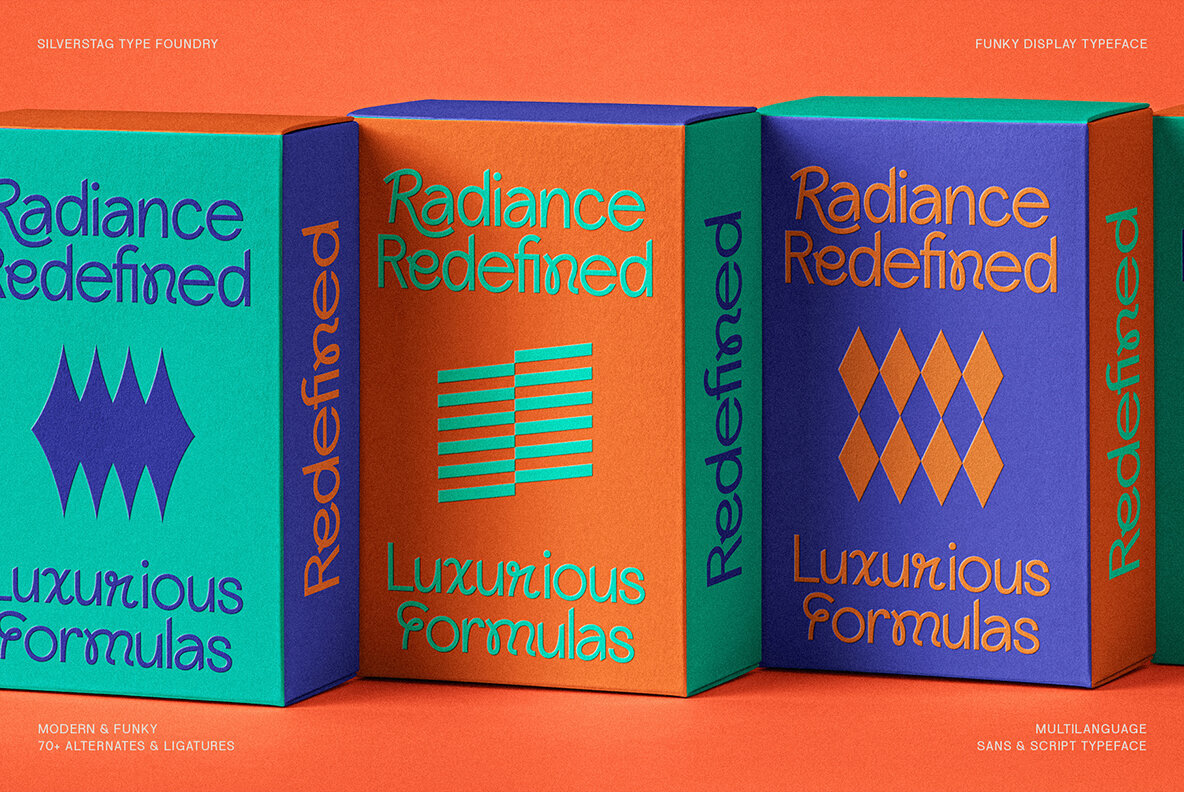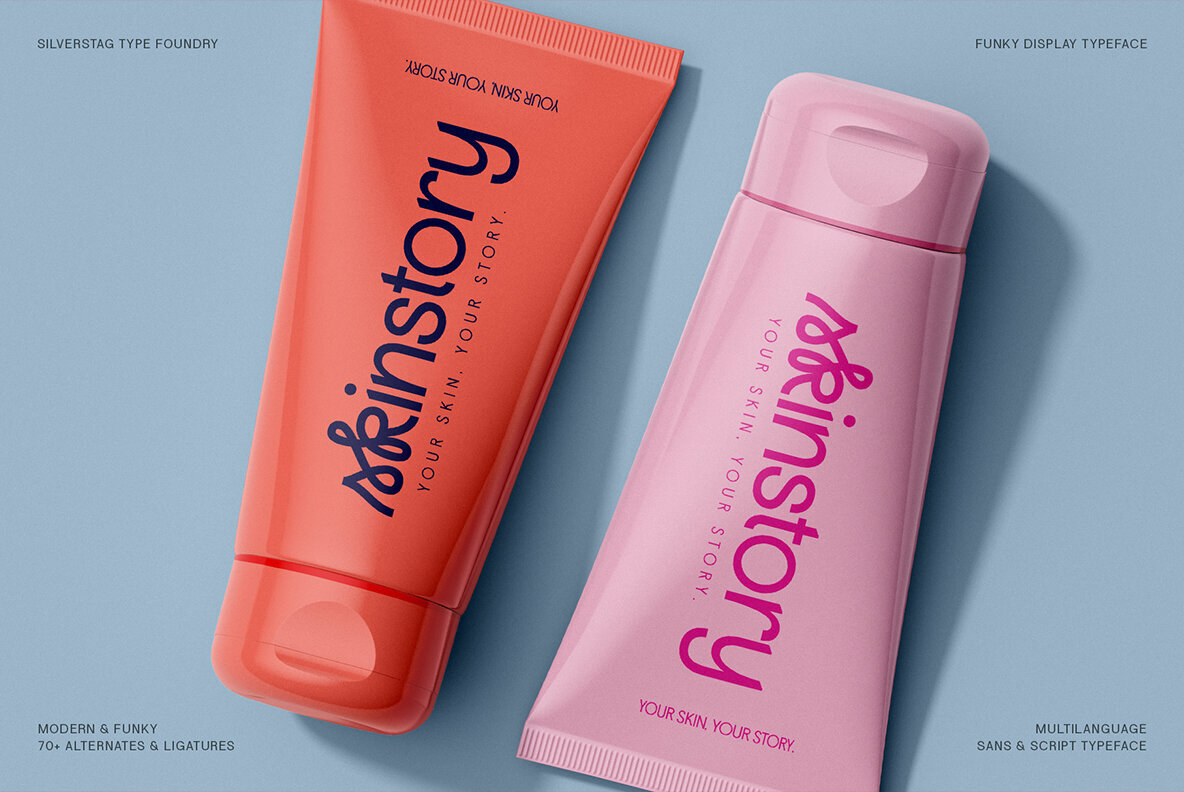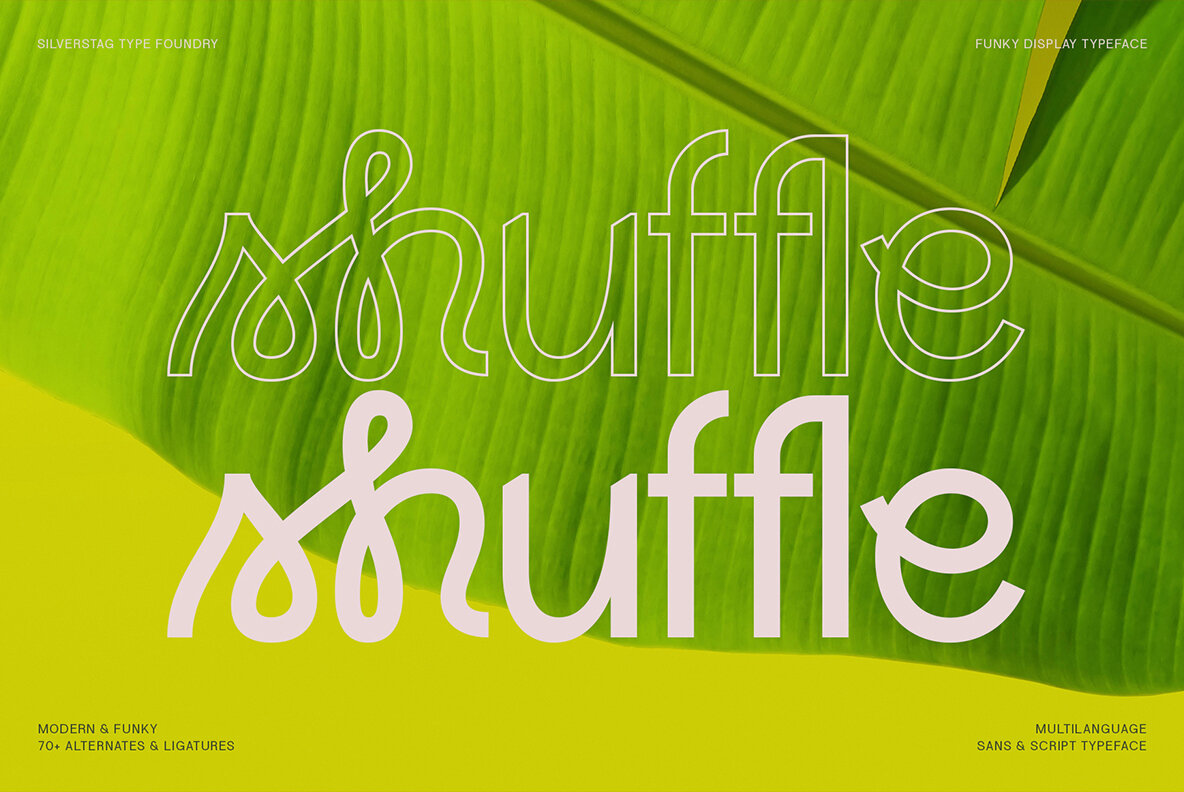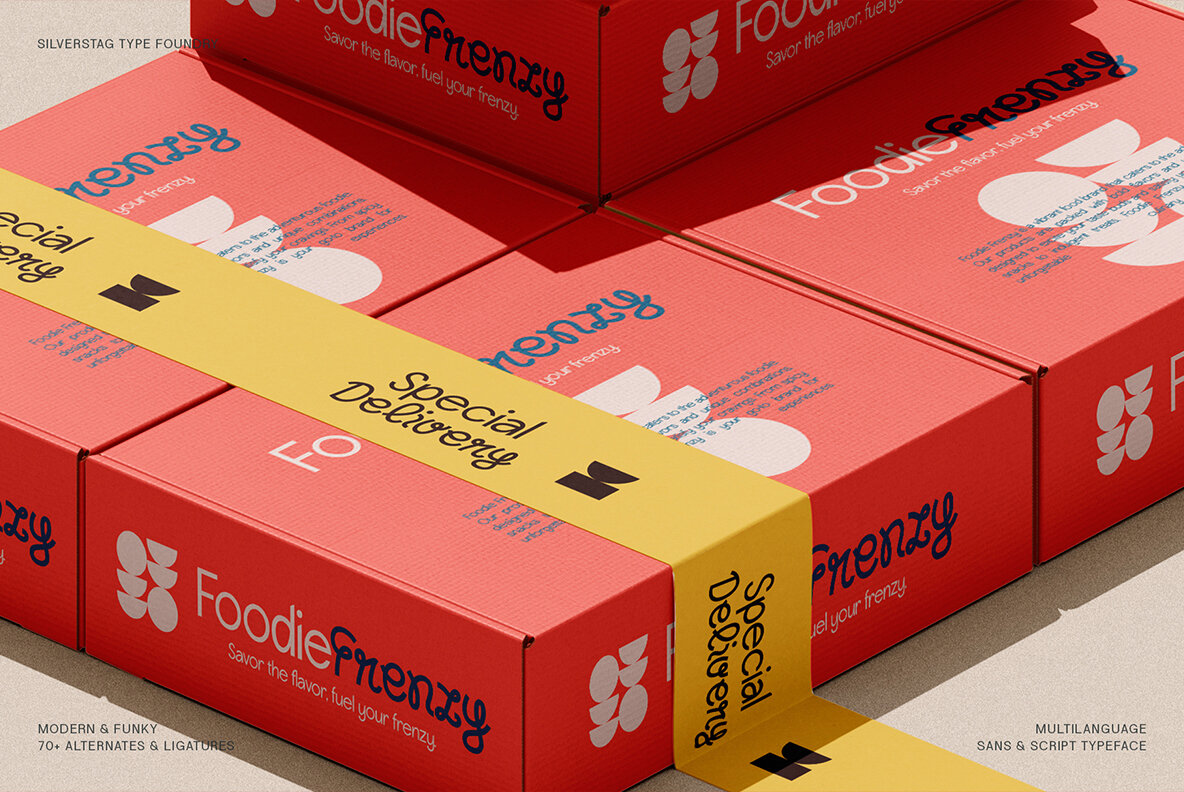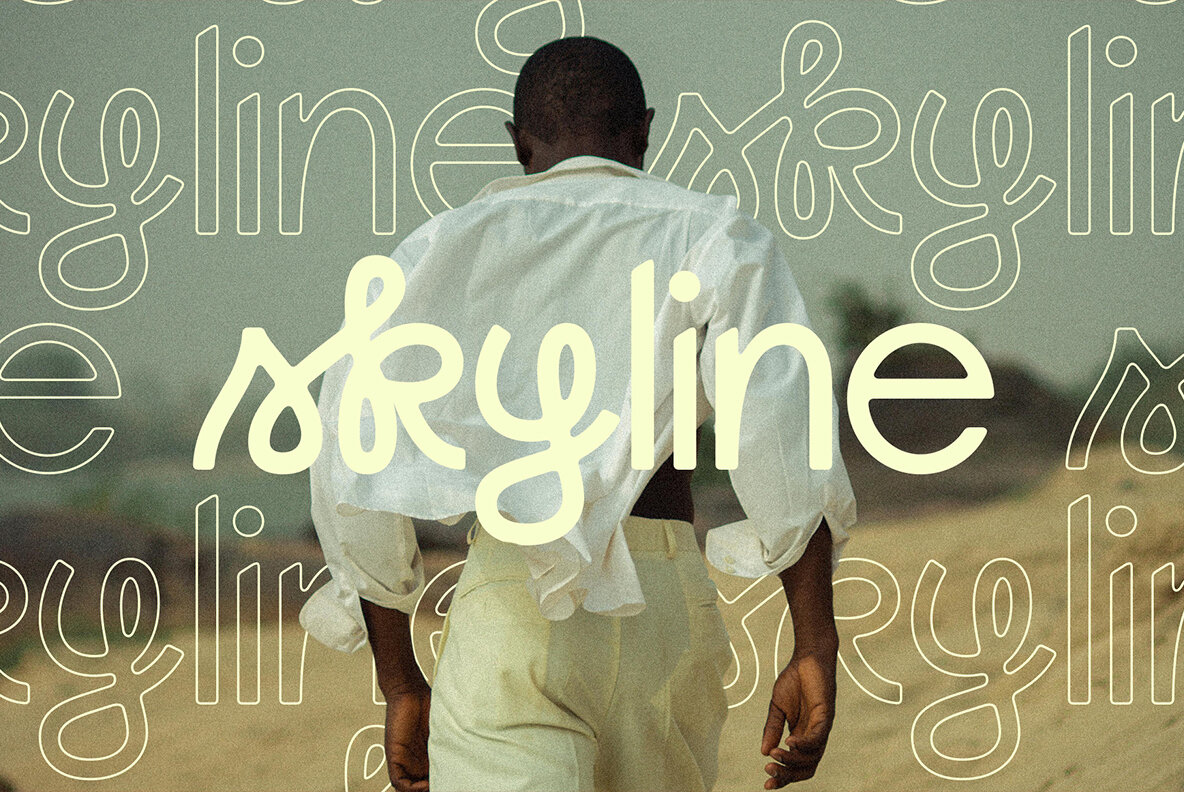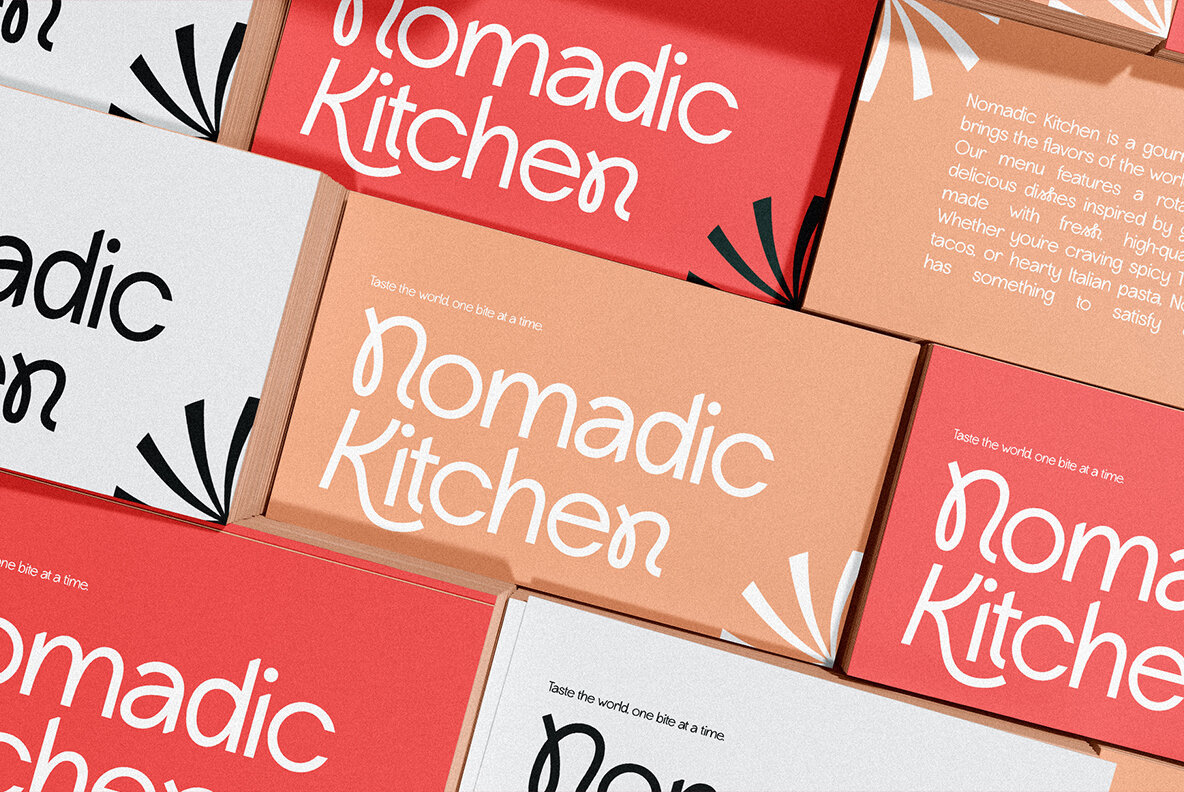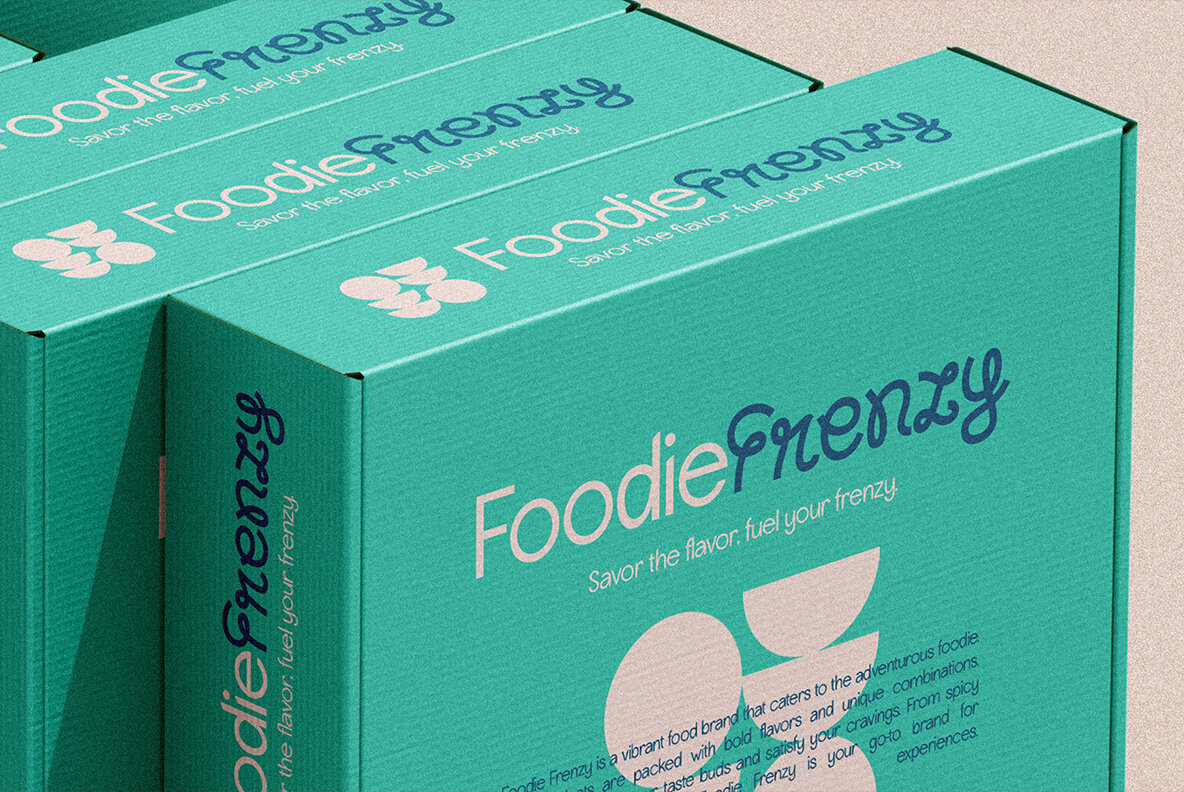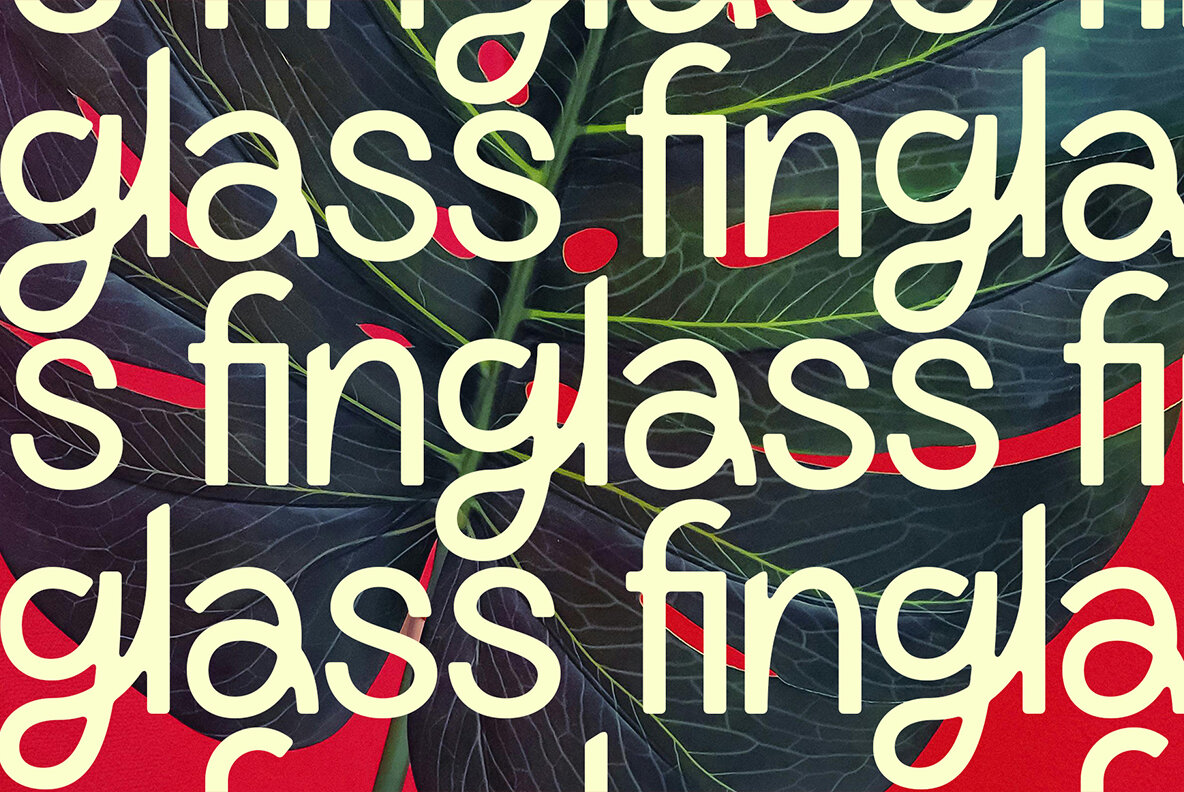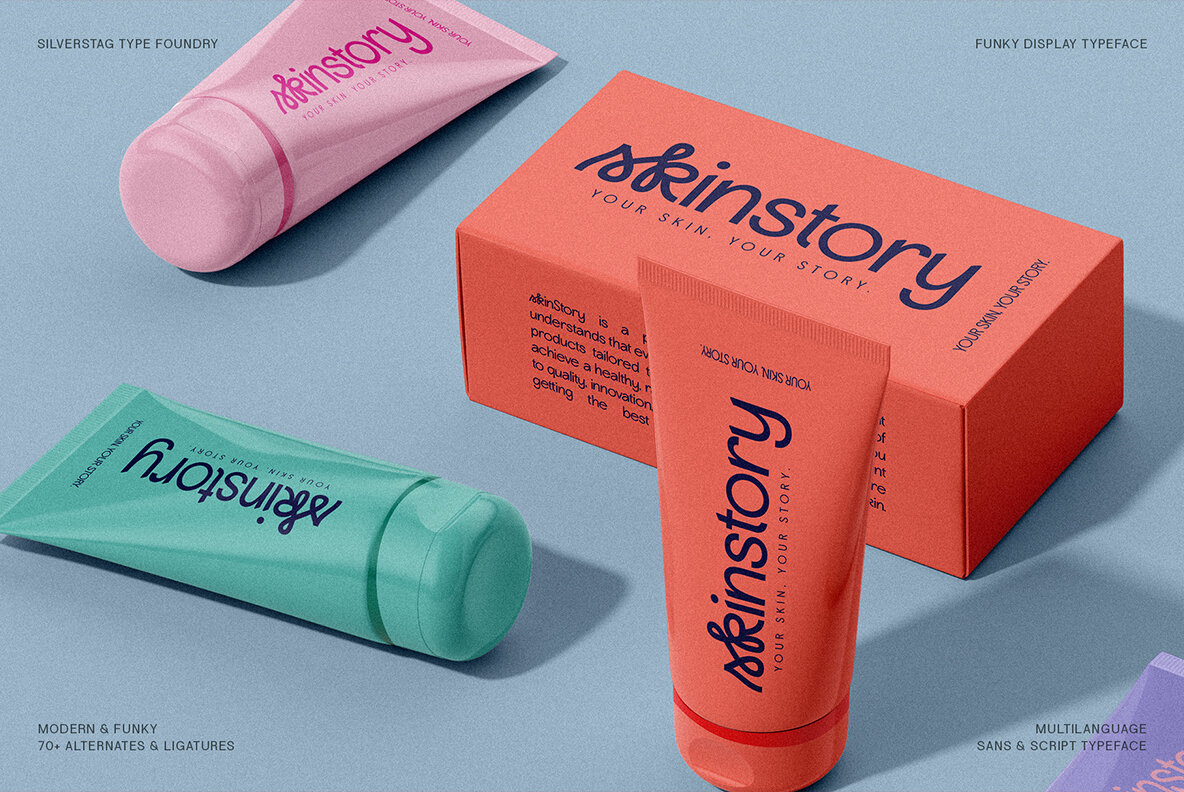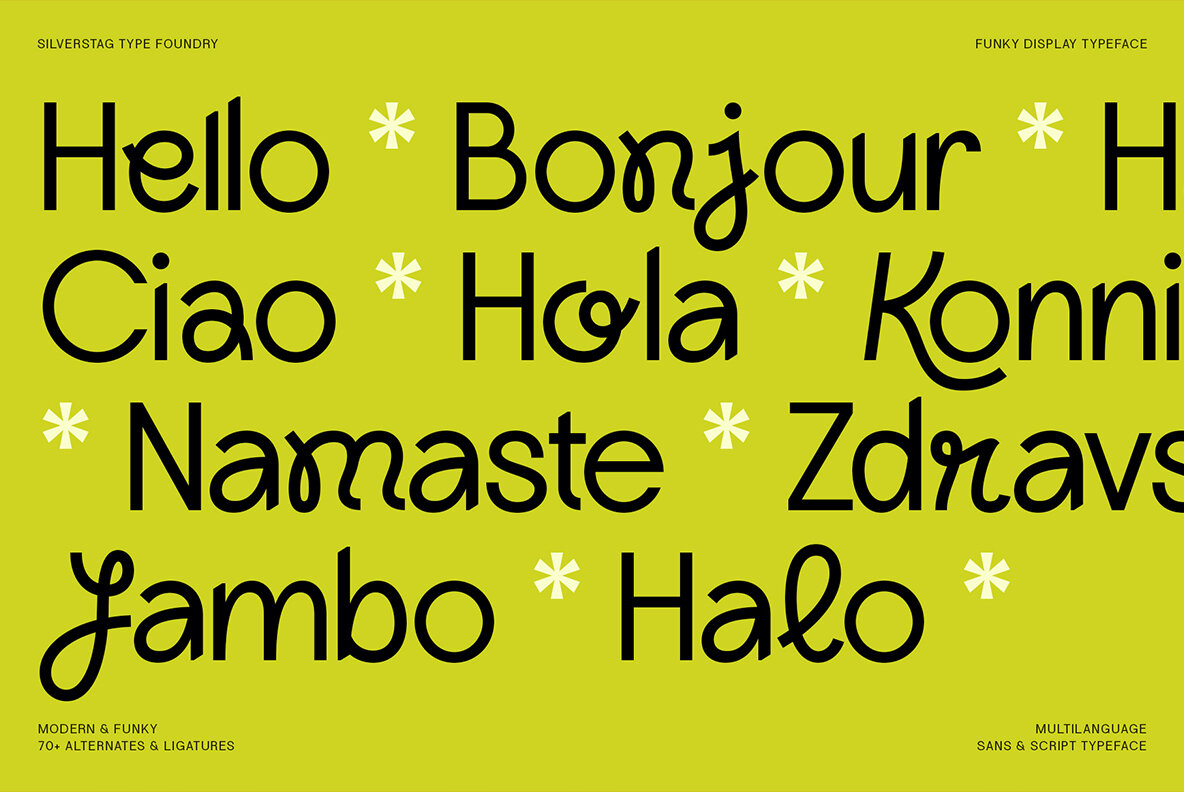
Lightshift Font
Lightshift Regular
Lightshift Regular Outline
Lightshift Rounded
Lightshift Rounded Outline
Introducing Lightshift: Illuminate Your Designs with Funky Flair Lightshift is a playful and energetic display typeface that injects a burst of personality into any project. With its blend of sans-serif simplicity and script-inspired flourishes, Lightshift strikes the perfect balance between modern and retro, making it a versatile choice for a variety of creative applications. Features: Unleash Your Creativity Lightshift is more than just a font, it's an invitation to experiment and express yourself. Mix and match the different styles, play with ligatures, and create typographic masterpieces that capture attention and leave a lasting impression. Perfect for: